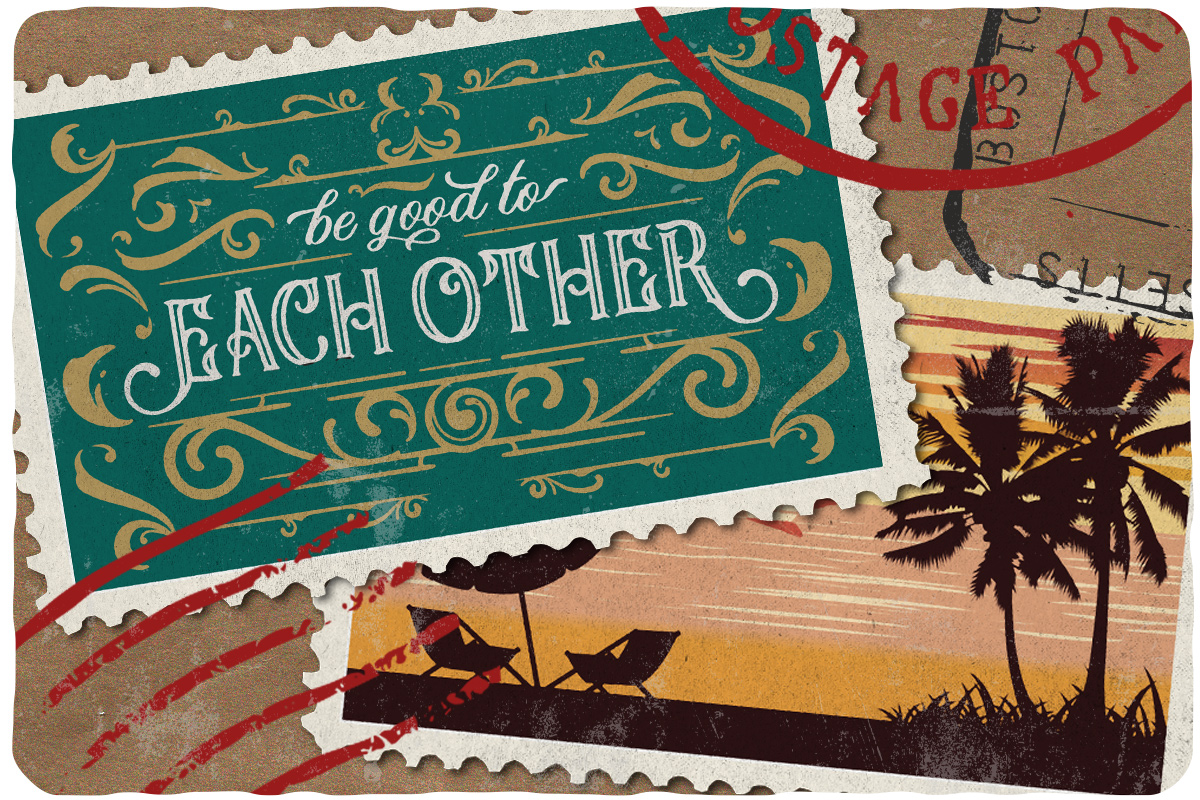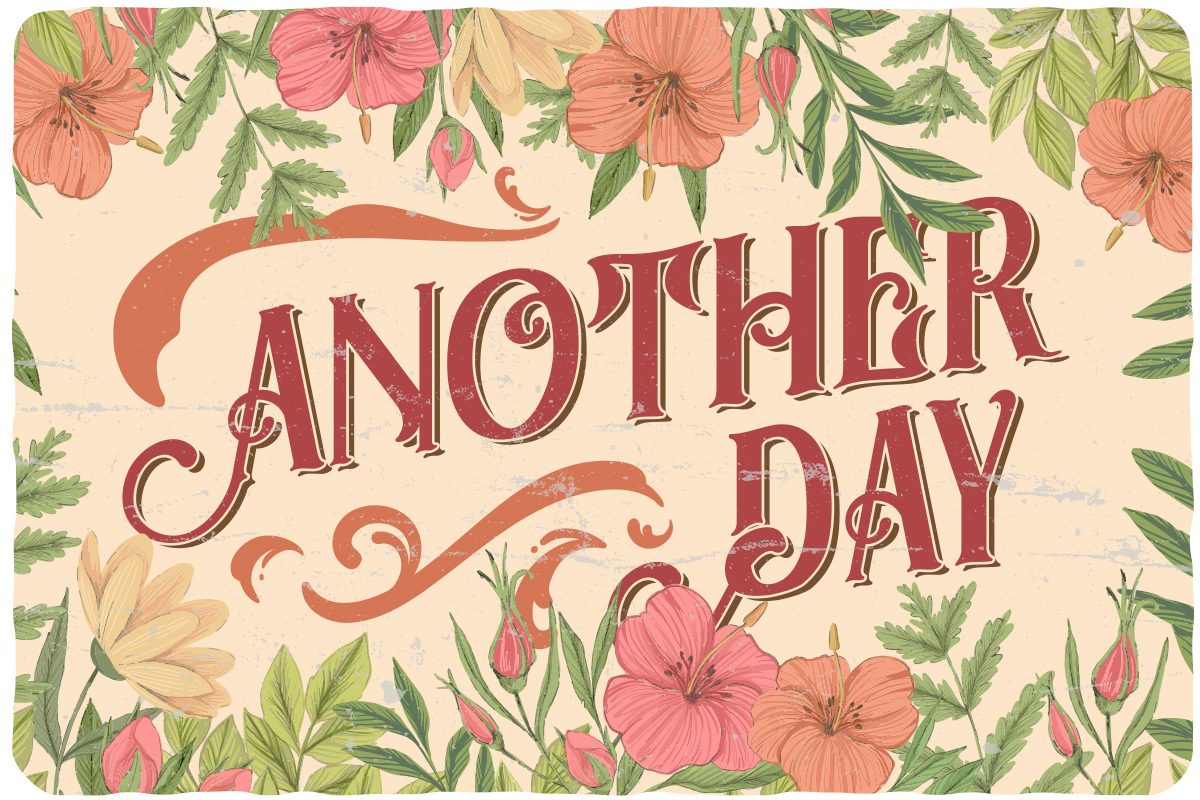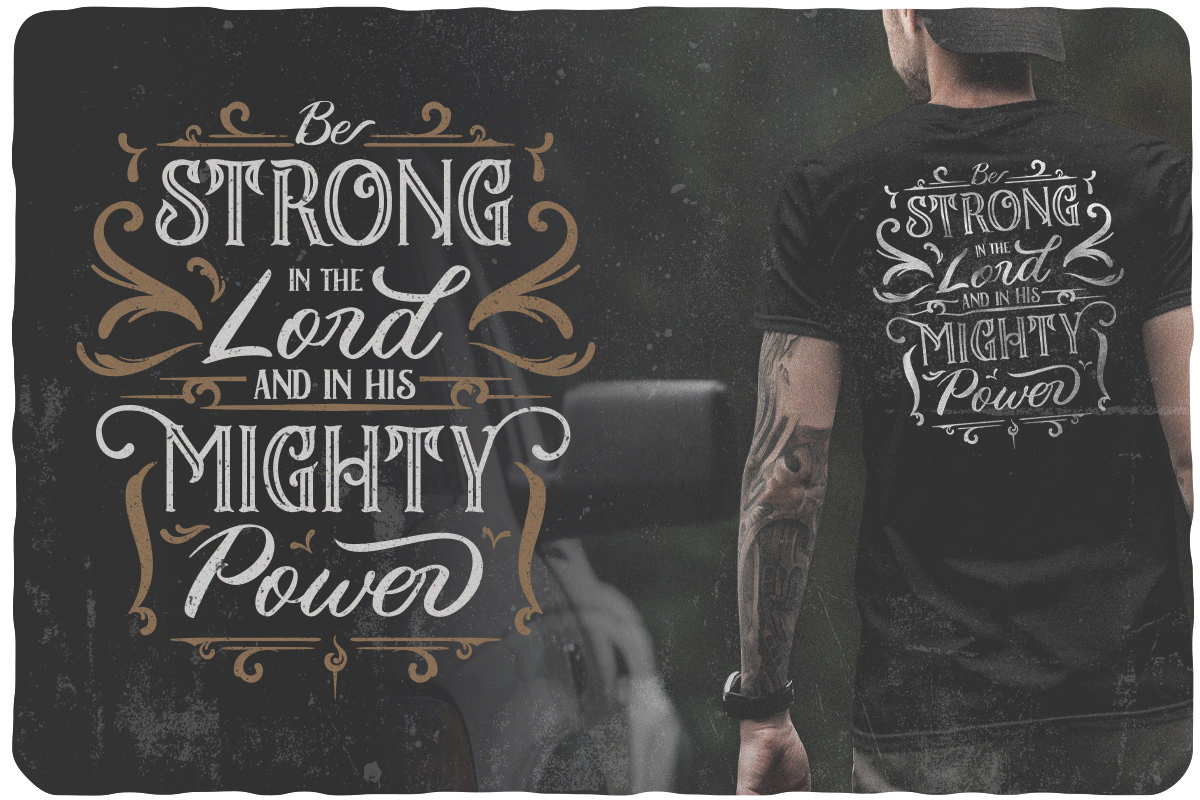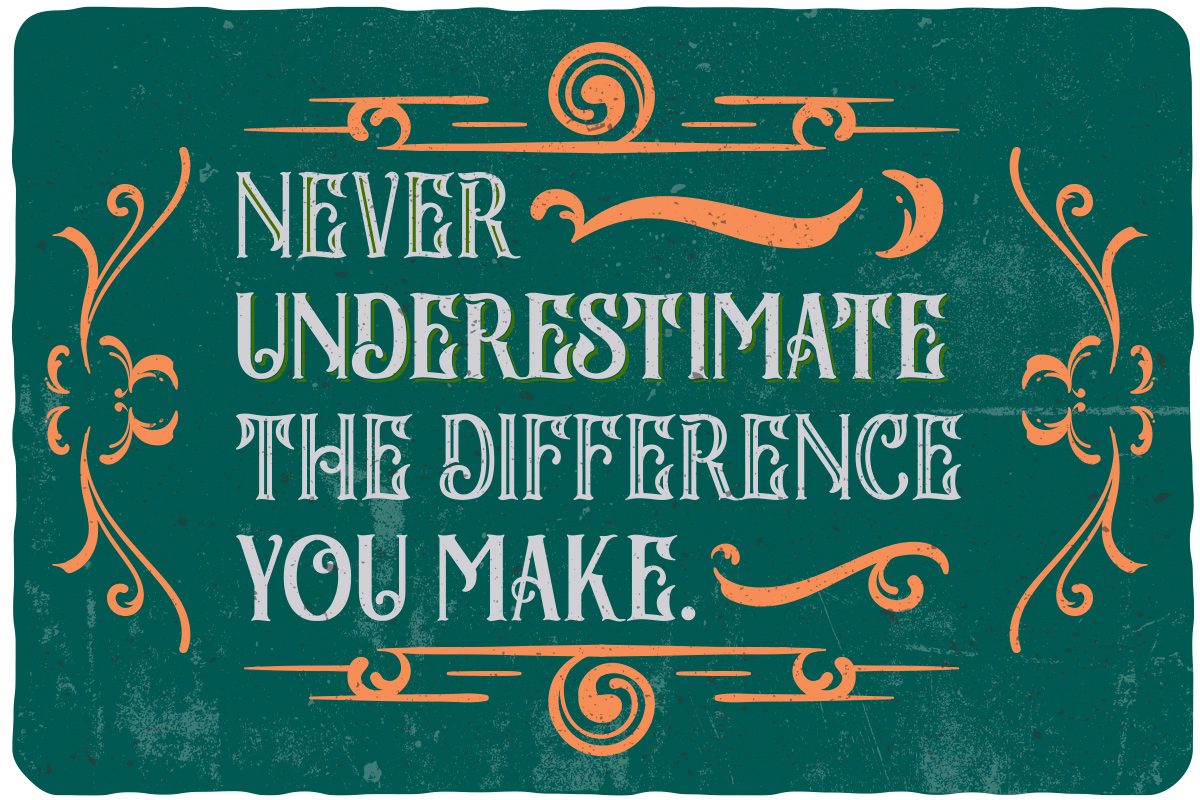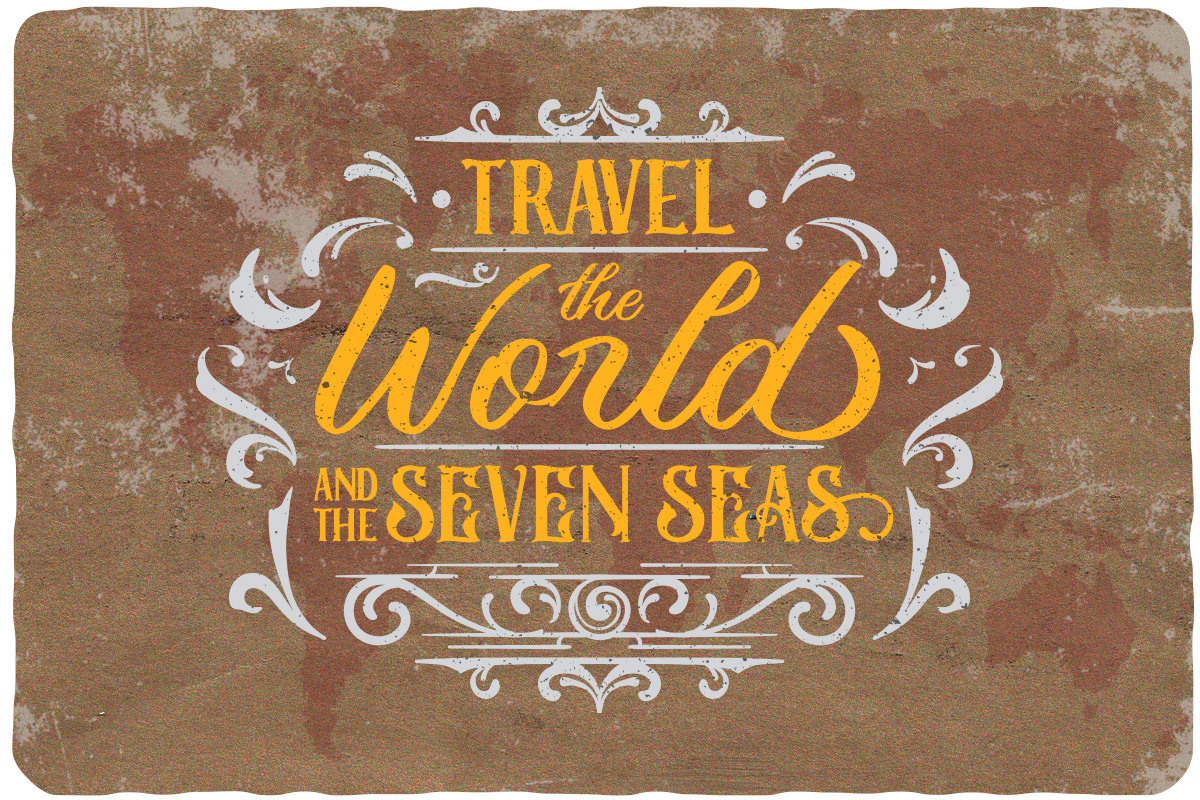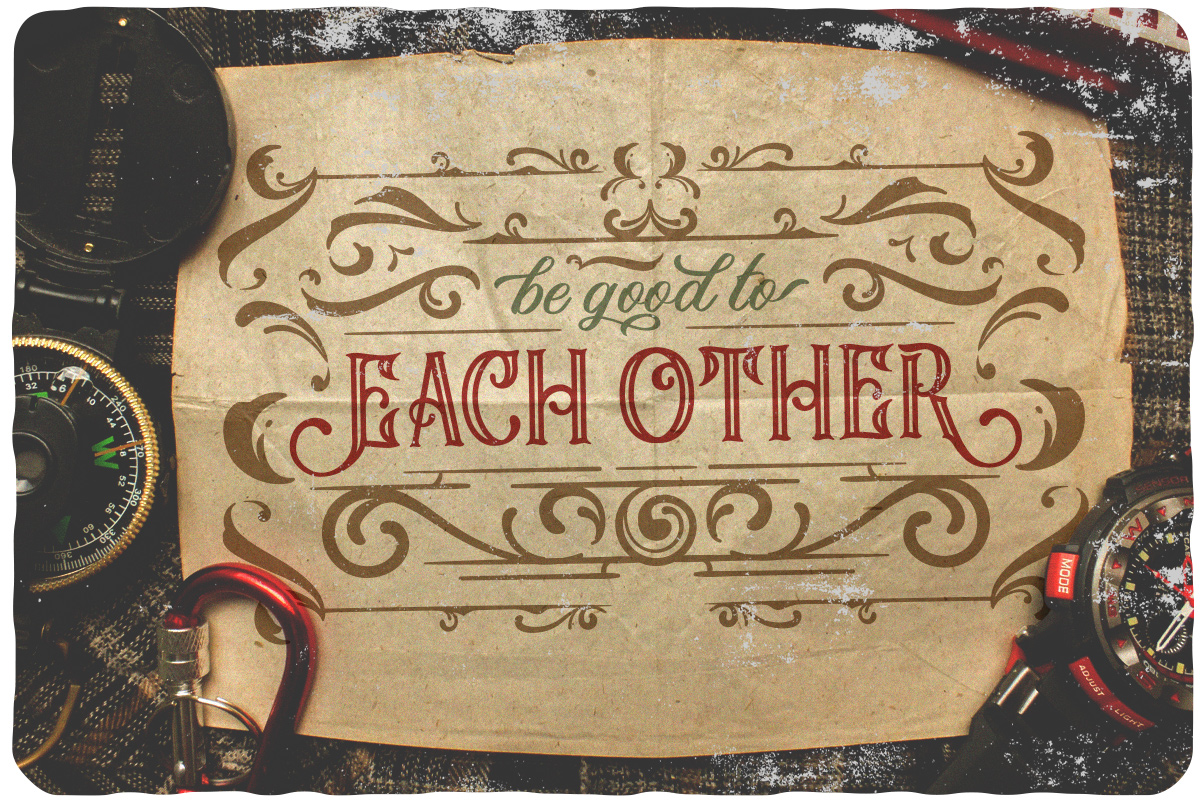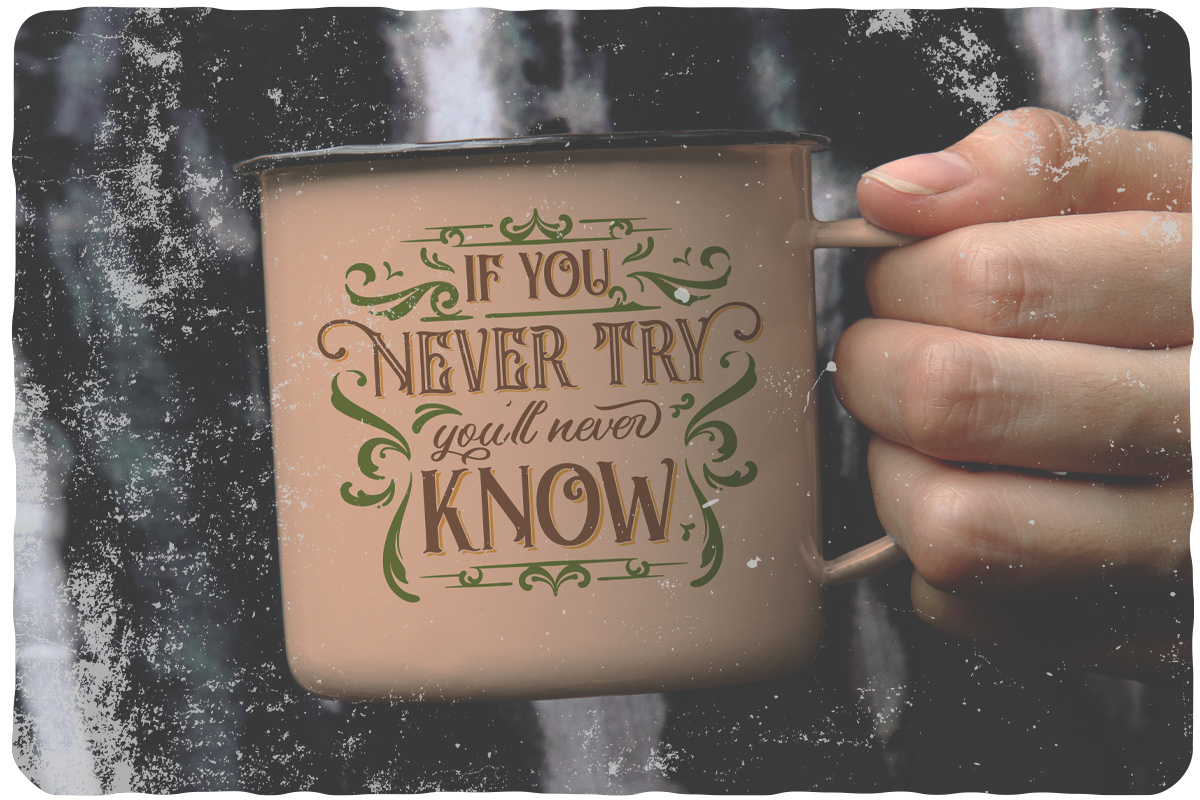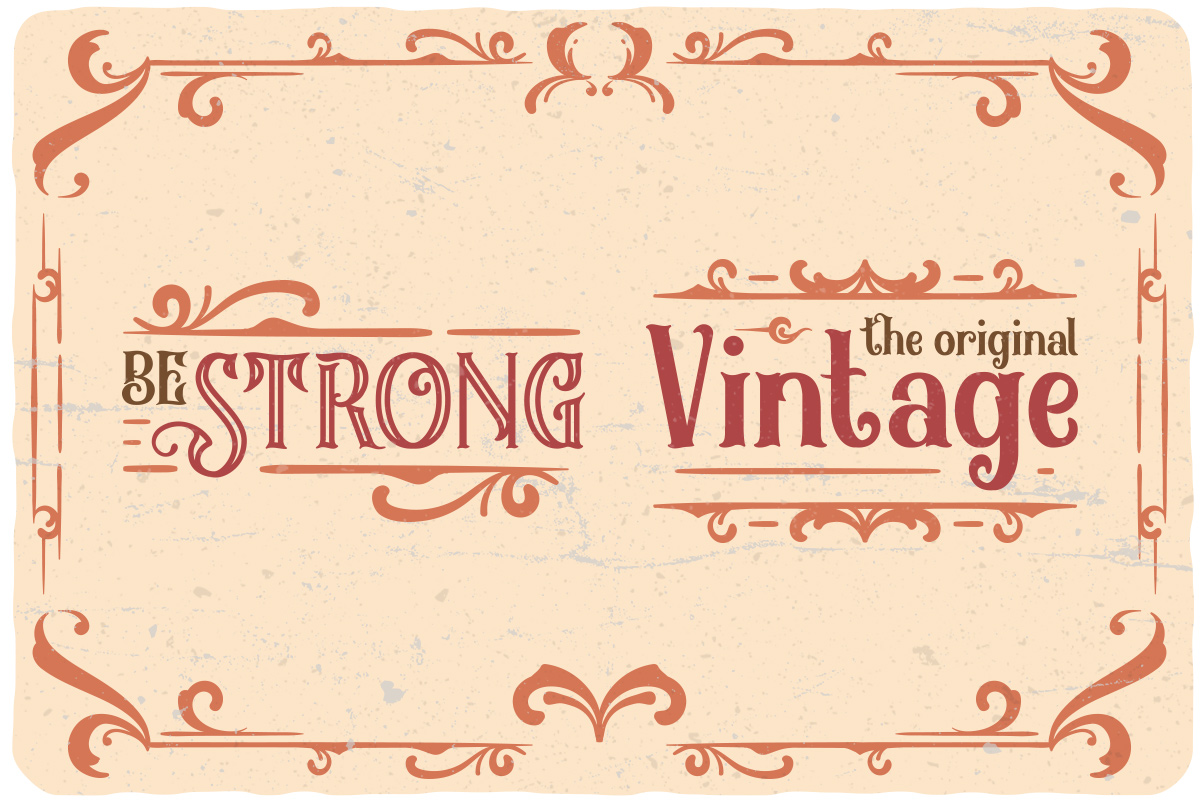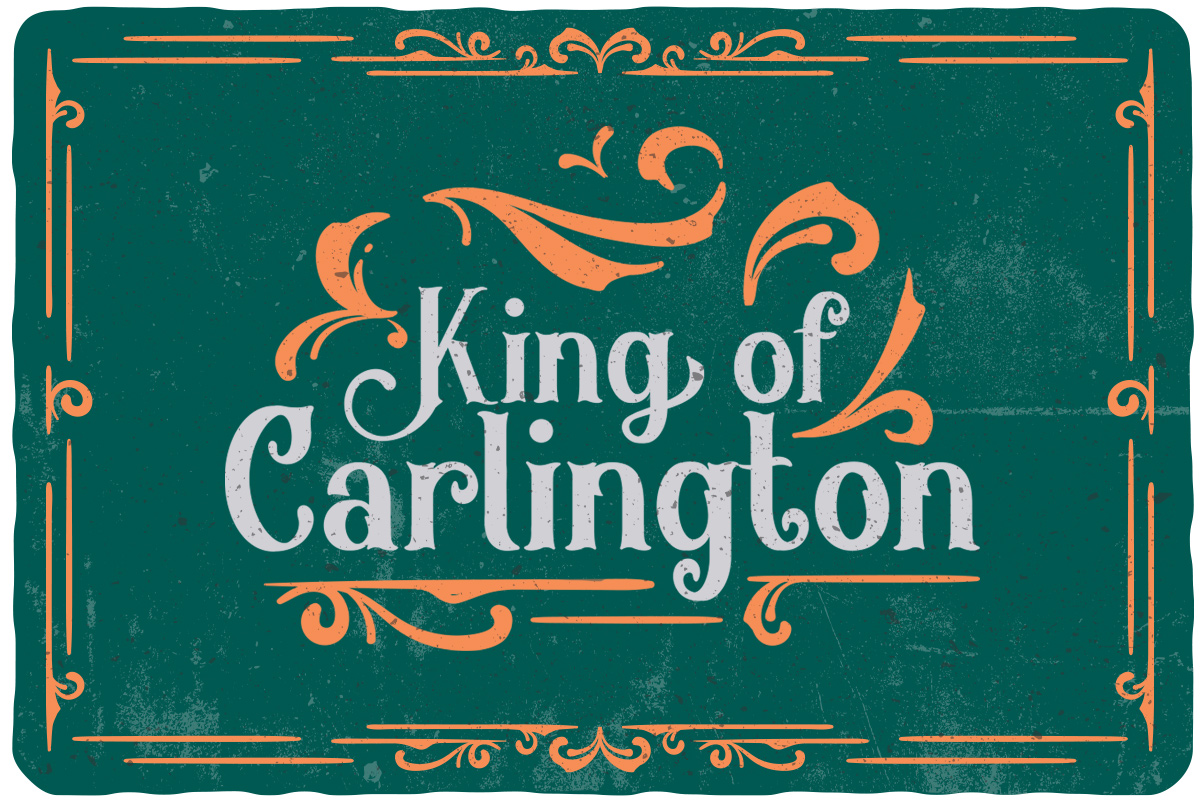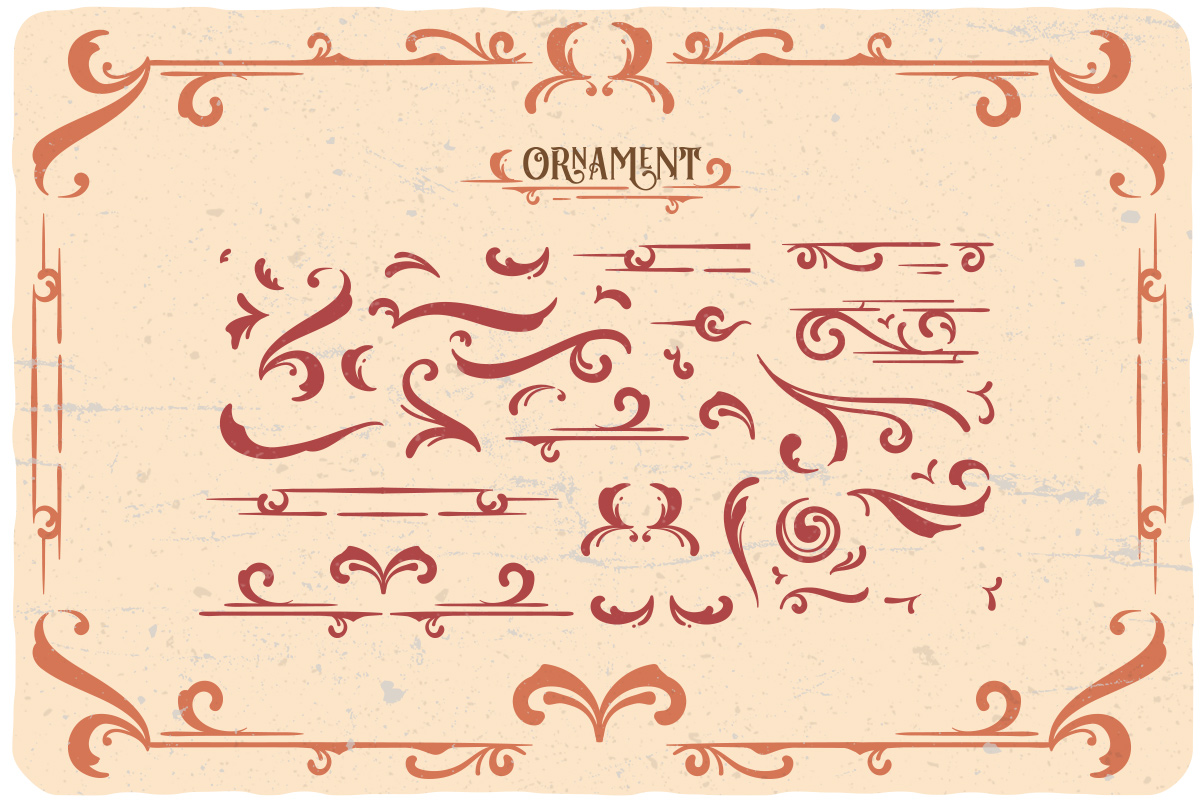
Black Arcade
Black Arcade Font Pack. This font fits in headlines, logos, posters, flyers, branding materials, print media, editorial layouts, and many more. Find out more ways to use this font by taking a look at the font preview.
- 10 Ligatures
- Bonus Ornament